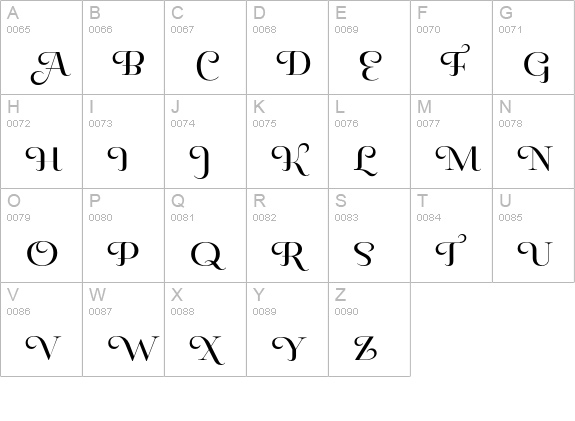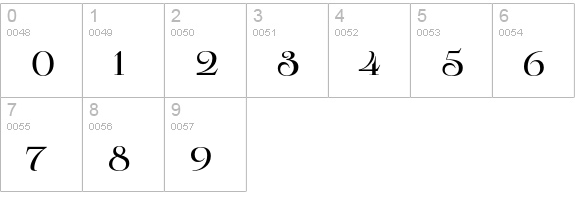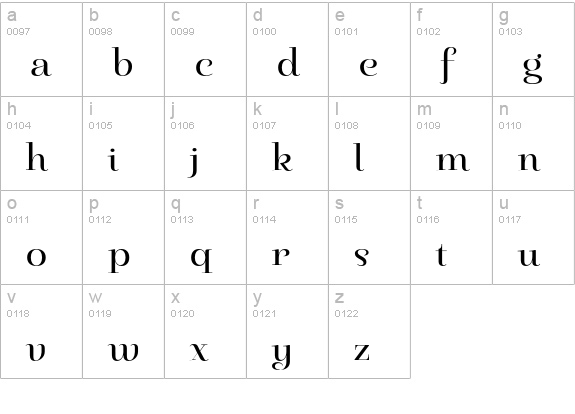
Pauline Didone Regular is the standard, neutral variant in the Pauline typeface family \xE2\x80\x94 well suited to general body text, paragraphs, and standard typographic work.
Pauline Didone Regular font is a versatile and elegant typeface that exudes sophistication and charm. Its classic design features thin serifs and high contrast between thick and thin strokes, giving it a timeless and luxurious feel. Perfect for creating stylish headlines, invitations, branding materials, and more, this font adds a touch of class to any project. Best of all, Pauline Didone Regular font is available for free download at FontsMarket.com. Whether you're a designer looking to enhance your creations or a typographer seeking a new addition to your font library, this font is a must-have. Download it today and elevate your designs with the beauty and grace of Pauline Didone Regular font.